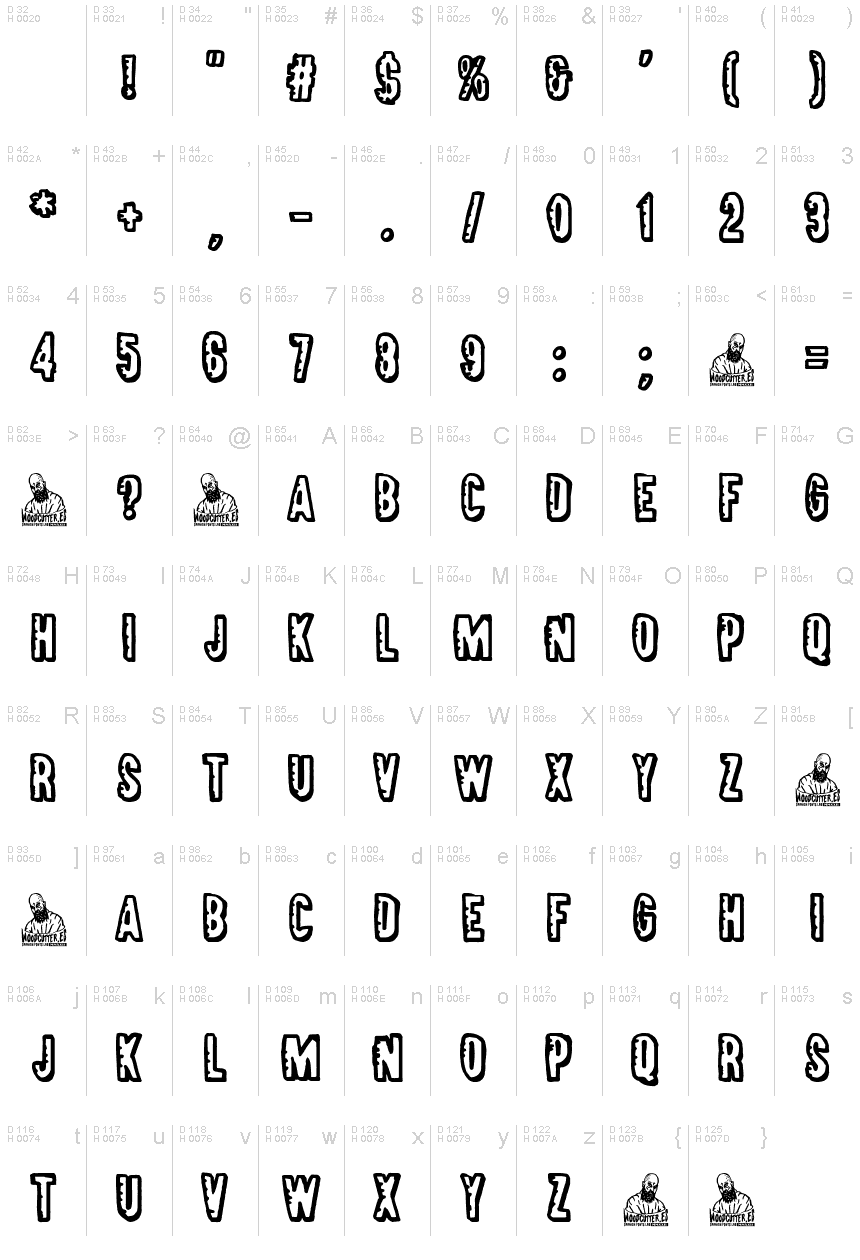
Darkness Boulevard
Darkness Boulevard, a bold and condensed display font designed by Woodcutter, adds a touch of gritty sophistication to your projects.
With its eroded style, this typeface exudes an edgy and mysterious vibe that is perfect for album covers, movie posters, and book titles. Its condensed width makes it ideal for fitting longer texts in limited spaces without sacrificing readability.
Whether you're creating an urban-inspired brand identity or designing a chilling horror game interface, Darkness Boulevard will bring your visuals to life with its unique character and captivating presence.